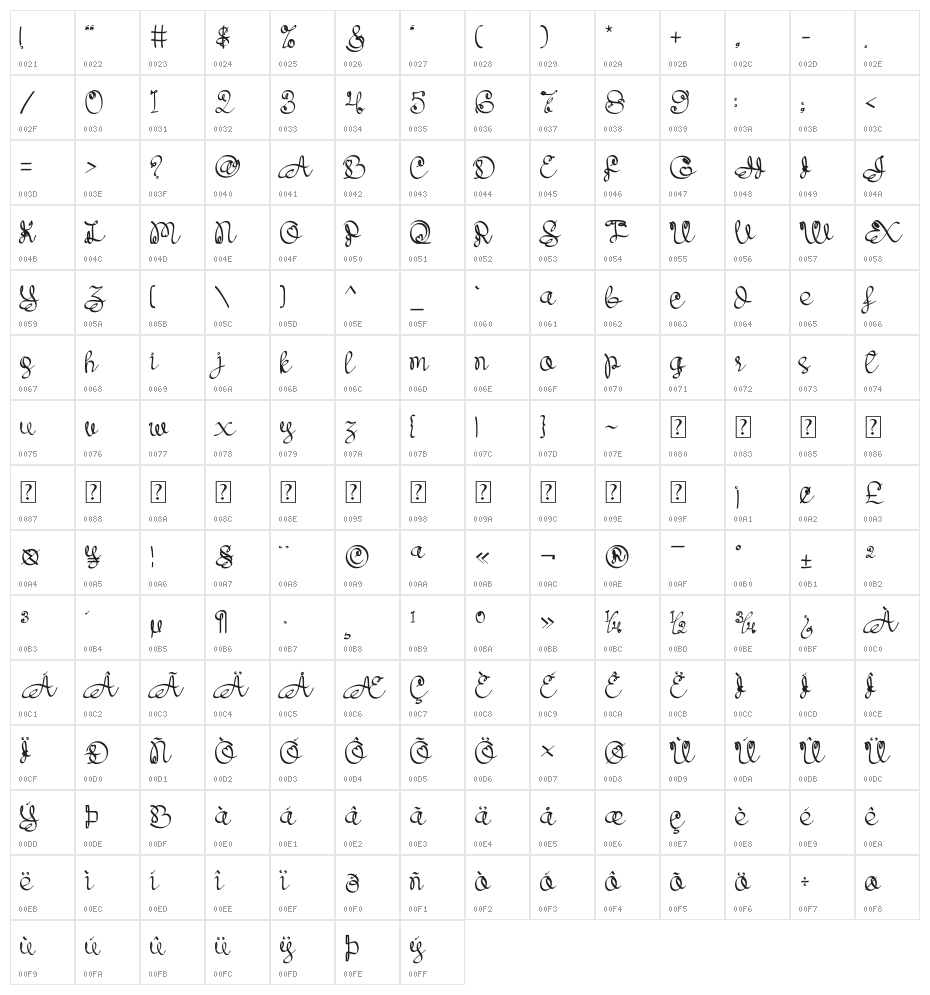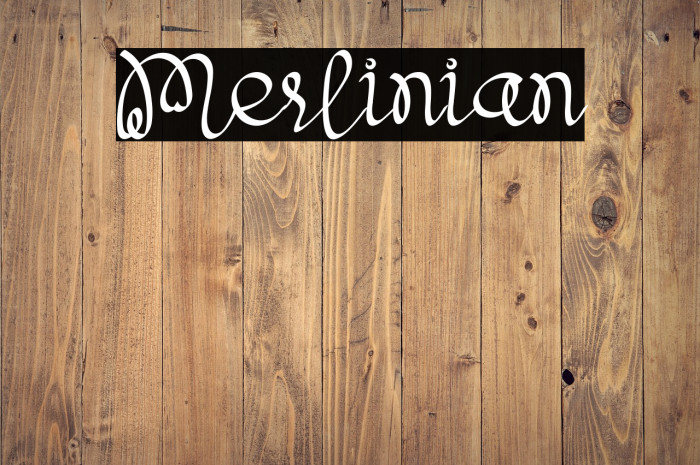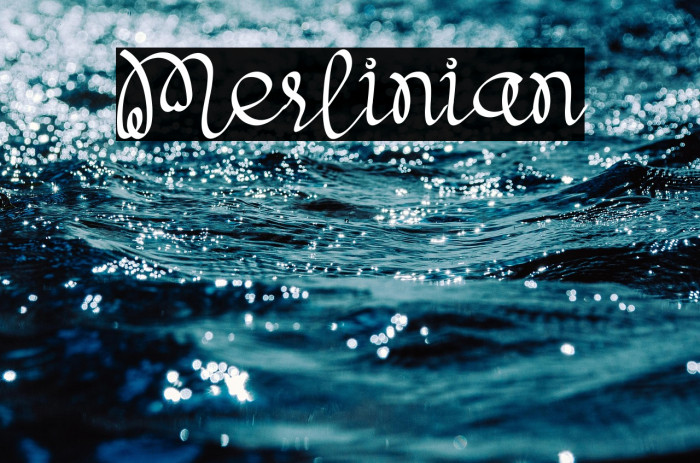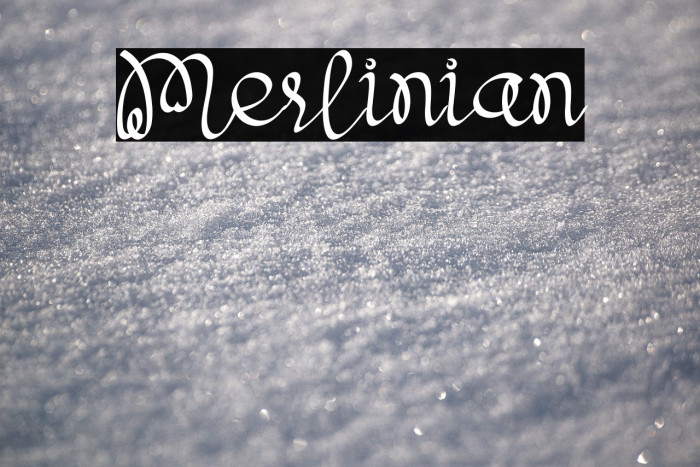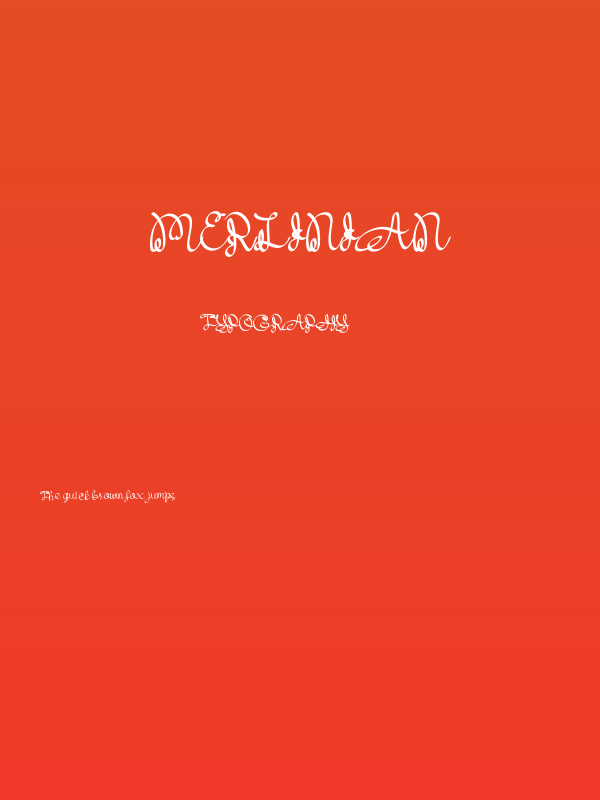
Merlinian Font
| Anwendungsfall | Logos, Invitations, Artistic projects |
| Vorgeschlagene Projekte | Ideal for wedding invitations, greeting cards, branding for luxury products, and artistic projects requiring a touch of elegance. |